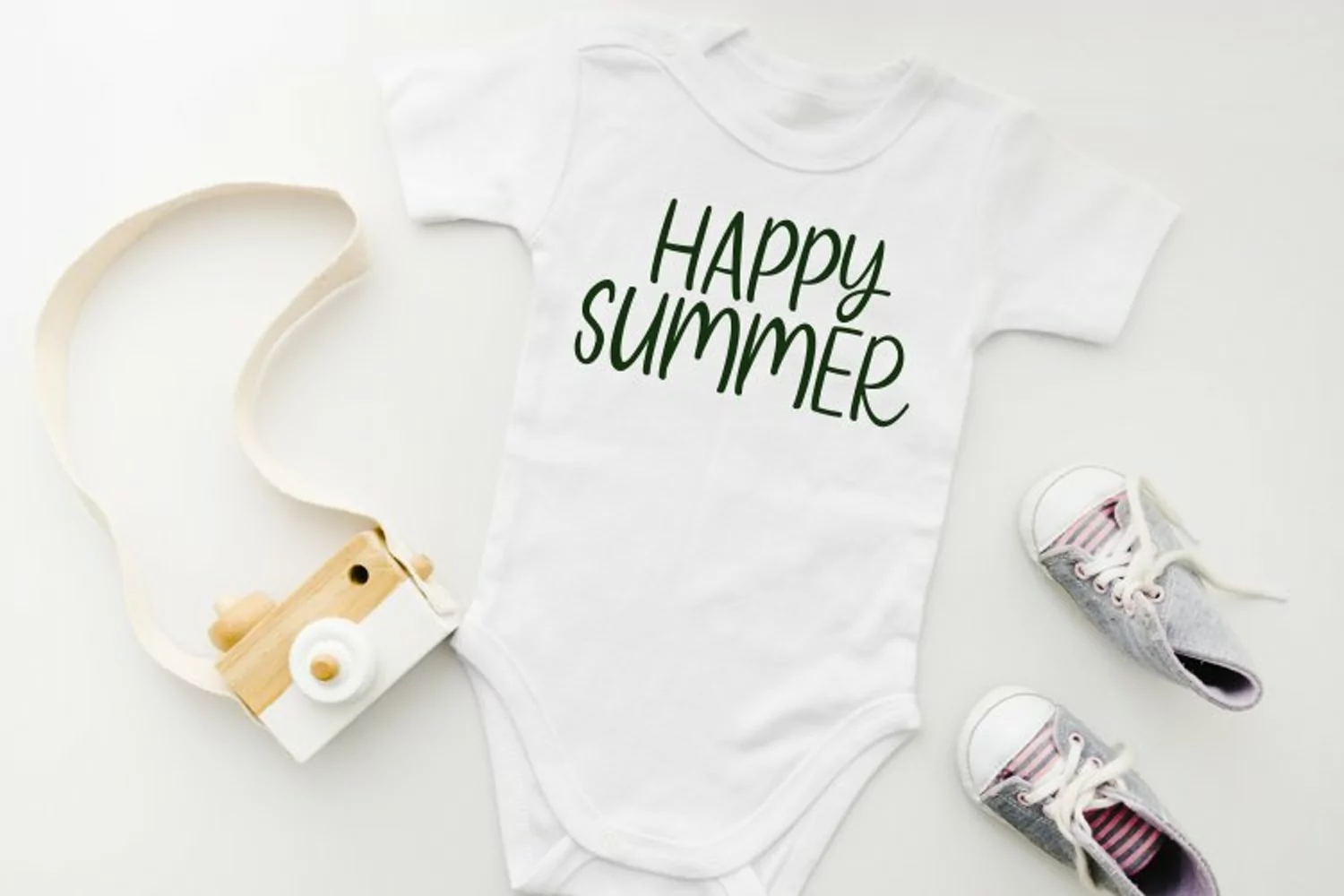
Summer Yesterday is Handwritten calligraphy font. It has a elegant, and modern look which can be used for logos, branding, invitations, stationary, wedding designs, social media posts, and every other design.